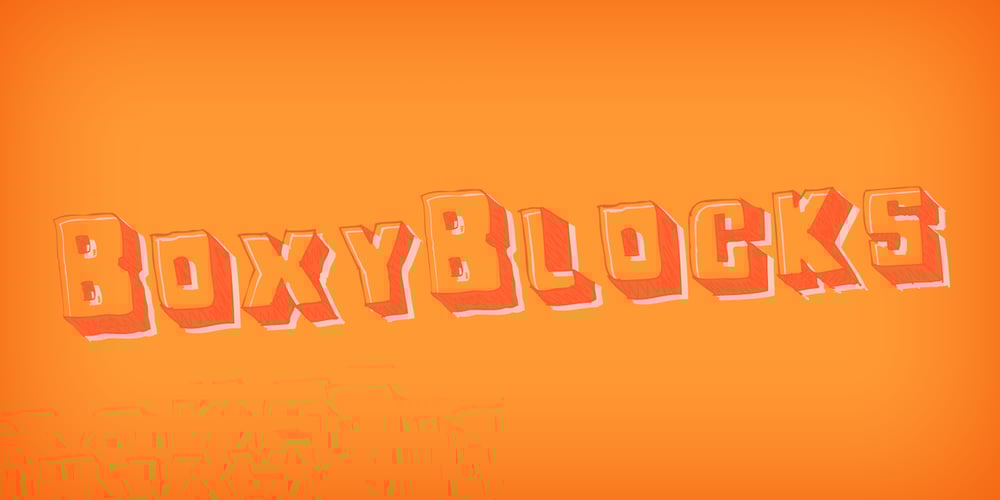
BoxyBlocks Font Family was designed by Domenico Mazza and published by d[esign]. BoxyBlocks contains 3 styles and family package options. The laboriously hand drawn letters of the BoxyBlocks font family are something reminiscent of the letters and decorative elements which adorned our childhood artworks, posters, pencil cases and workbooks. The BoxyBlocks font family consists of three fonts; BoxyBlocks, BoxyBlocks Nero and BoxyBlocks Original. BoxyBlocks and BoxyBlocks Nero can be used together to fill in the sides of BoxyBlocks’ letters, by layering BoxyBlocks above a differently coloured BoxyBlocks Nero in your image editor of choice.